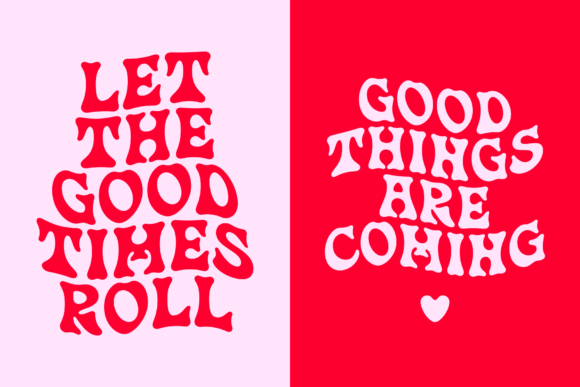
Enjoy Wave Font: Add a Retro Flair to Your Designs with this Groovy Font
Are you looking to add a touch of nostalgia to your designs? Do you want to capture the free-spirited, vintage vibe of the 1970s? Look no further than Enjoy Wave – A Groovy Font. This playful display font is inspired by the iconic, free-flowing typography of the 70s and combines bold, rounded shapes with a nostalgic yet modern twist.
The Inspiration Behind Enjoy Wave Font
The 1970s was a decade known for its iconic typography, with fonts like Papyrus, Souvenir, and Curlz becoming synonymous with the era. Enjoy Wave Font takes inspiration from these classic fonts, but with a modern twist. The font features bold, rounded shapes that are reminiscent of the 1970s, but with clean lines and a fresh feel that makes it perfect for modern designs.
Key Features of Enjoy Wave Font
- Playful and Display Font: Enjoy Wave Font is a playful display font that is perfect for headlines, titles, and short text passages.
- Bold and Rounded Shapes: The font features bold, rounded shapes that give it a unique and distinctive look.
- Nostalgic yet Modern: Enjoy Wave Font combines the nostalgia of the 1970s with a modern twist, making it perfect for designs that need a retro flair.
- Easy to Read: Despite its playful nature, Enjoy Wave Font is easy to read, even at smaller sizes.
Use Cases for Enjoy Wave Font
Enjoy Wave Font is perfect for a variety of design projects, including:
- Posters: Add a retro flair to your posters with Enjoy Wave Font.
- Logos: Create a unique and memorable logo with Enjoy Wave Font.
- Branding Projects: Use Enjoy Wave Font to add a touch of nostalgia to your branding projects.
- Social Media Graphics: Add a playful touch to your social media graphics with Enjoy Wave Font.
Tips for Using Enjoy Wave Font
Here are some tips for using Enjoy Wave Font:
- Use it Sparingly: Enjoy Wave Font is a bold font, so use it sparingly to avoid overwhelming your design.
- Pair it with a Simple Font: Pair Enjoy Wave Font with a simple font to create contrast and visual interest.
- Experiment with Colors: Enjoy Wave Font looks great in a variety of colors, so experiment to find the perfect combination for your design.
Enjoy Wave – A Groovy Font is the perfect choice for designers who want to add a retro flair to their designs. With its bold, rounded shapes and nostalgic yet modern twist, this playful display font is sure to capture the free-spirited, vintage vibe of the 1970s. Whether you’re creating posters, logos, or branding projects, Enjoy Wave Font is a great choice.
- What is Enjoy Wave Font?: Enjoy Wave Font is a playful display font inspired by the iconic, free-flowing typography of the 1970s.